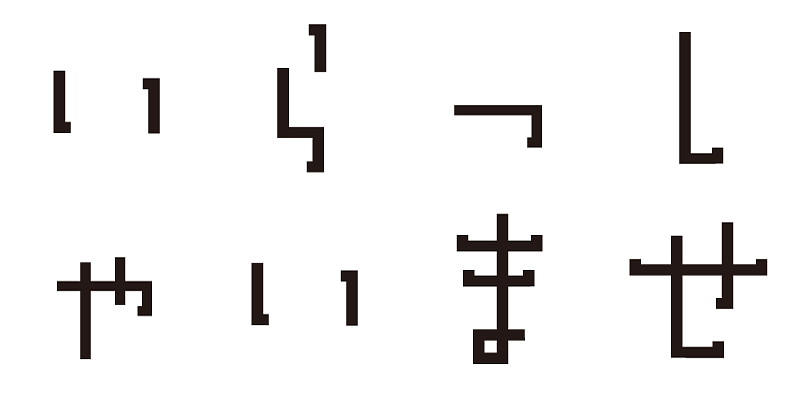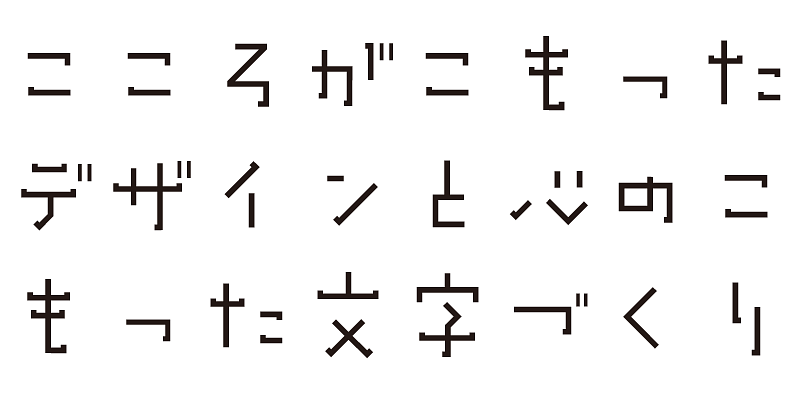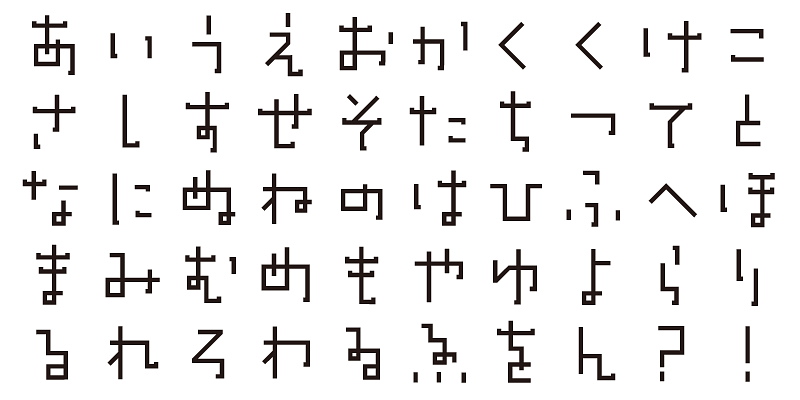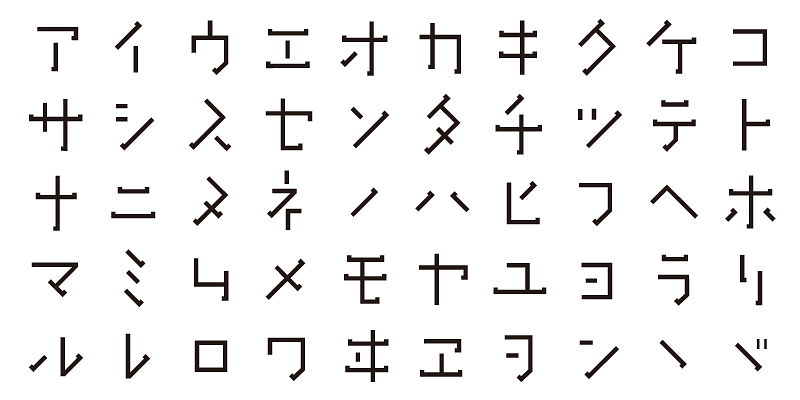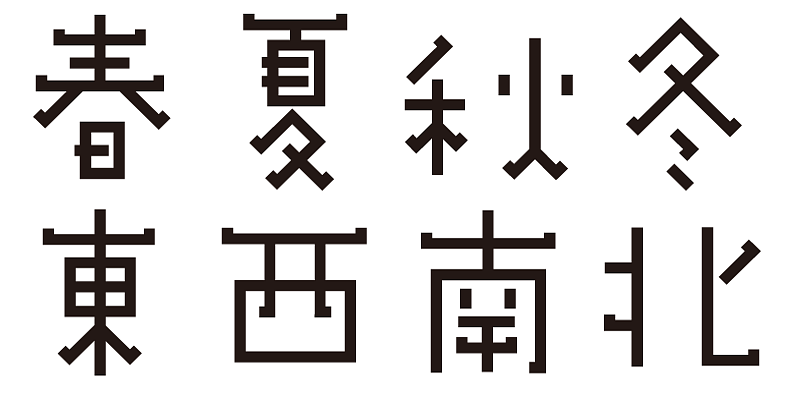
This typeface evokes the feeling of becoming an adult. The glyph designs are sharper than ADS-birthday19.
Each font in this typeface family includes 1,000 kanji characters, as well as hiragana, katakana, alphanumeric characters, and punctuation marks.
We design typefaces with the hope that they will add underlying meaning to words expressed. We wish the user to feel good and experience comfort and joy when using these typefaces.